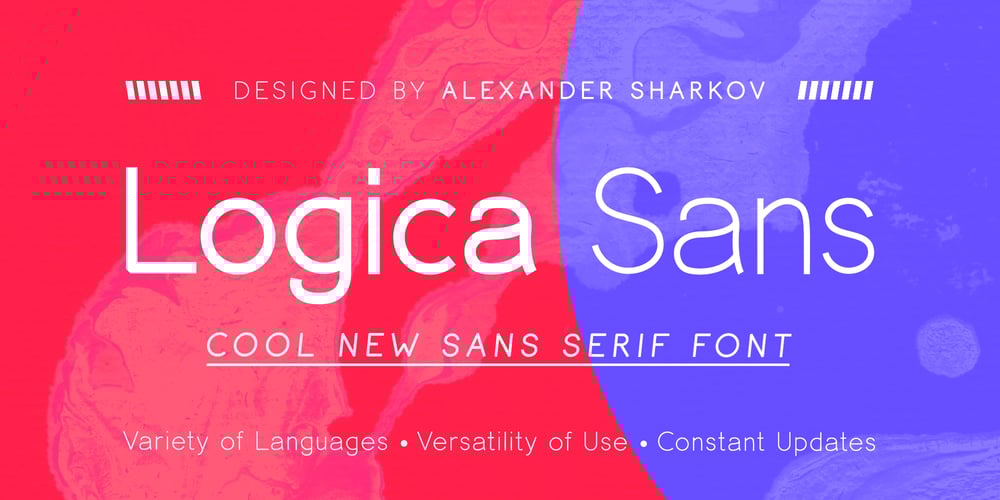
Logica Sans Font Family was designed by Alexander Sharkov and published by Alexander Sharkov. Logica Sans contains 13 styles and family package options. Let me introduce our cool new sans serif font Logica Sans!It is a versatile font. Great for logo design, mobile apps, online and print use, and a wide variety of projects.We will be constantly updating our font. Add new languages, glyphs, font styles. Follow the updates!We will be glad if our font helps in the development of your project!